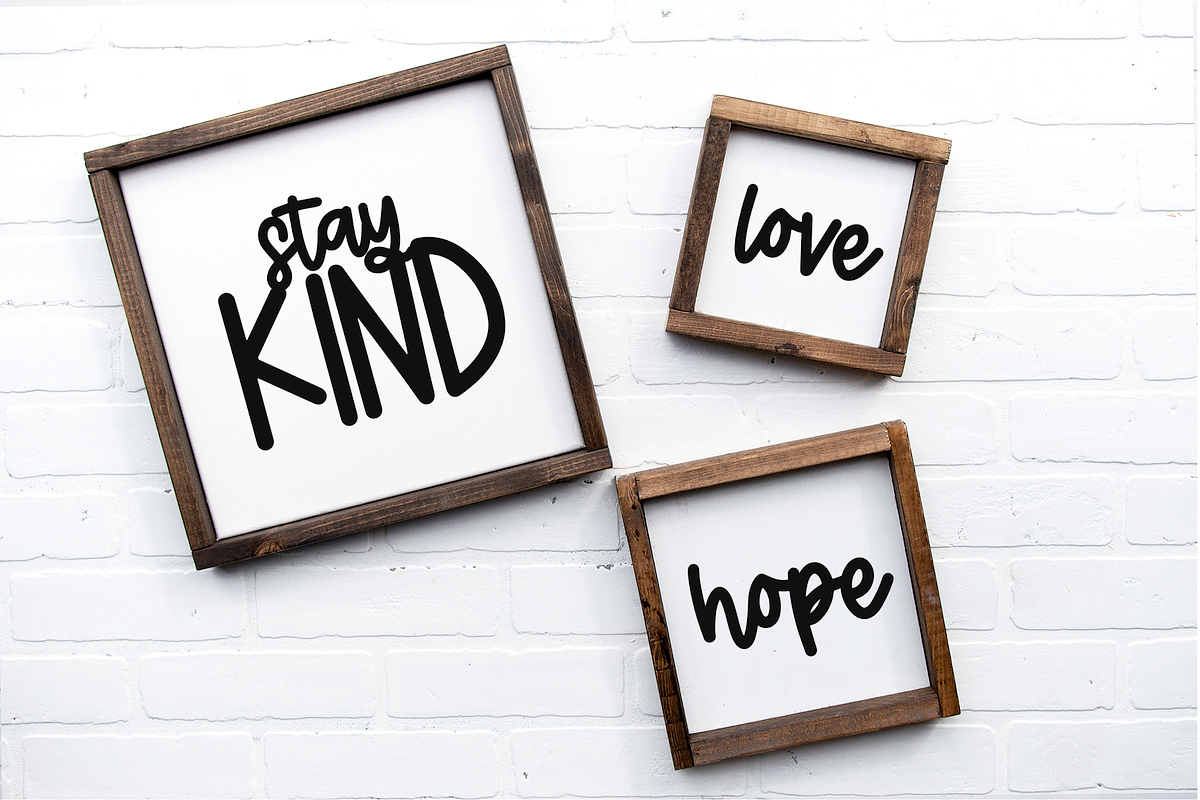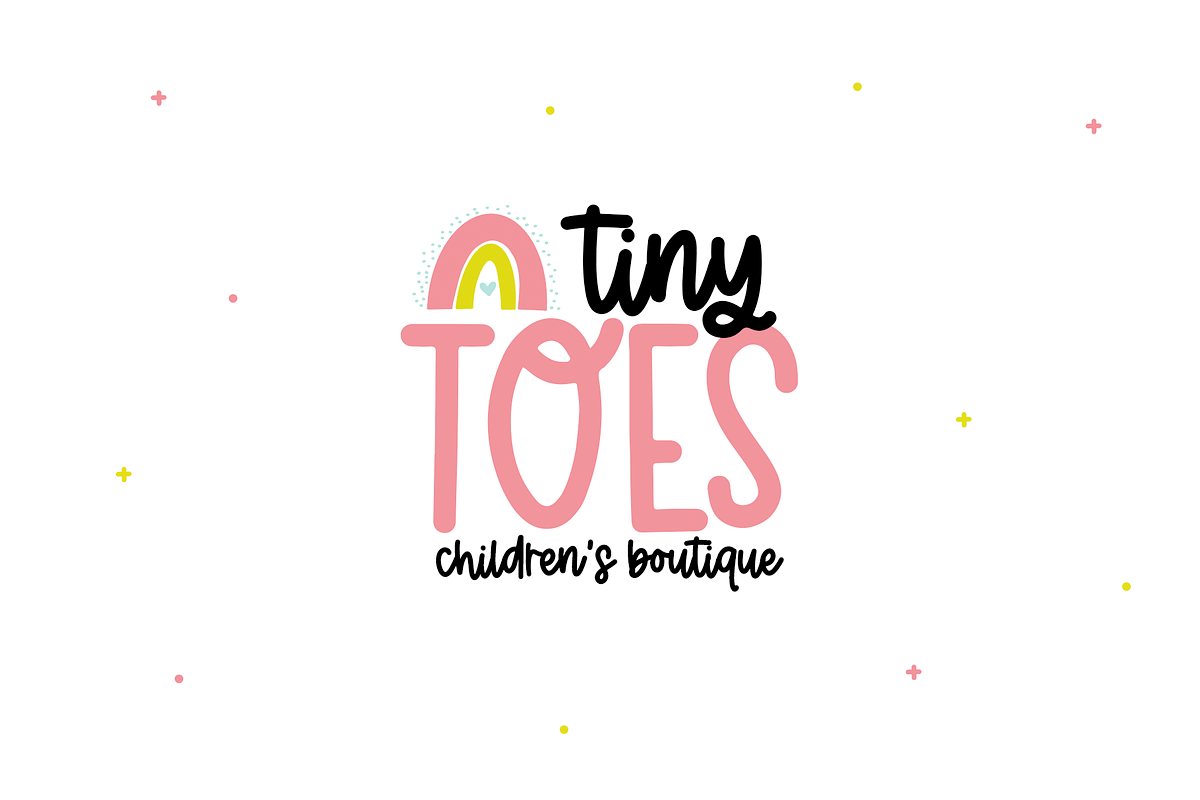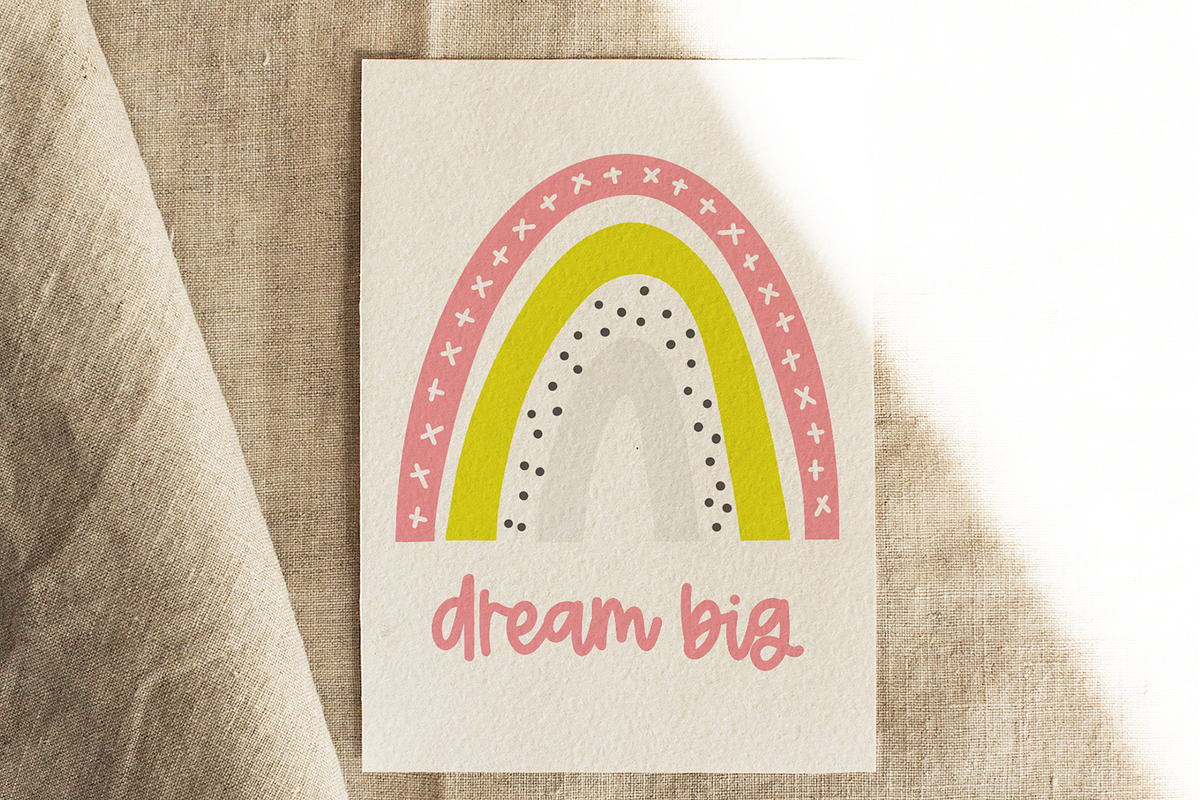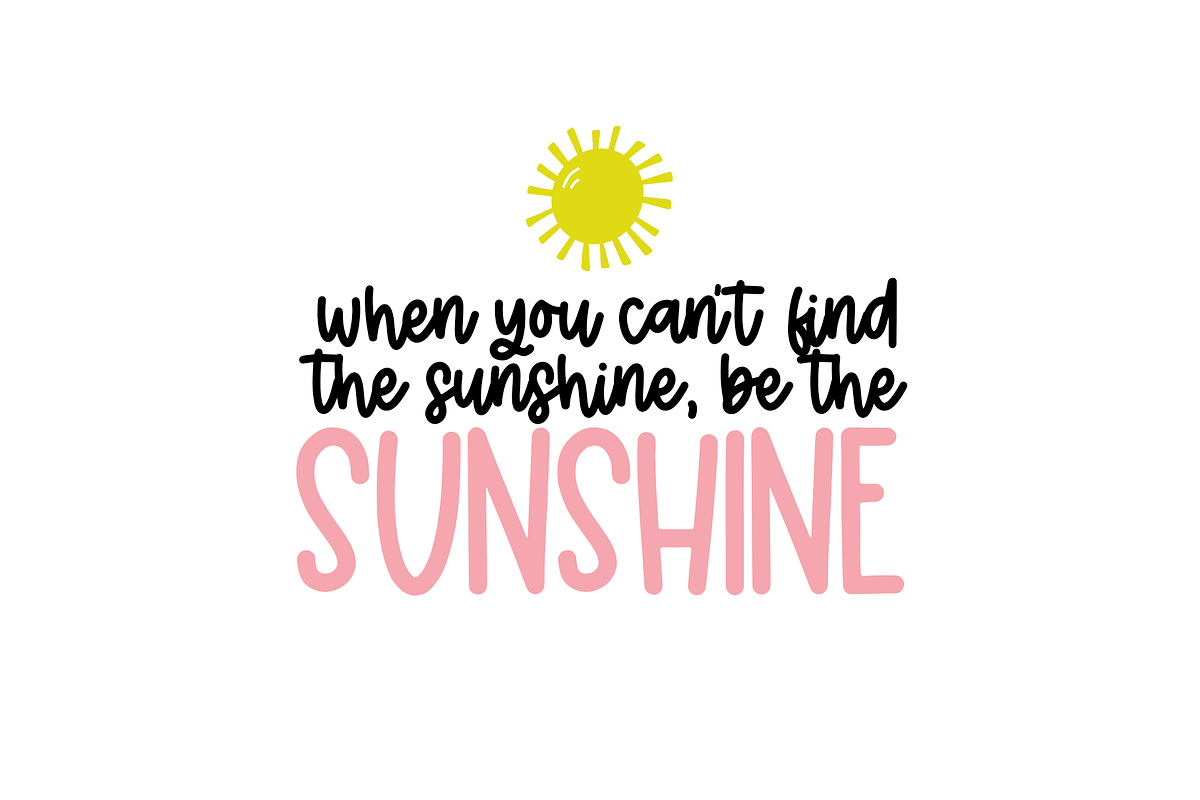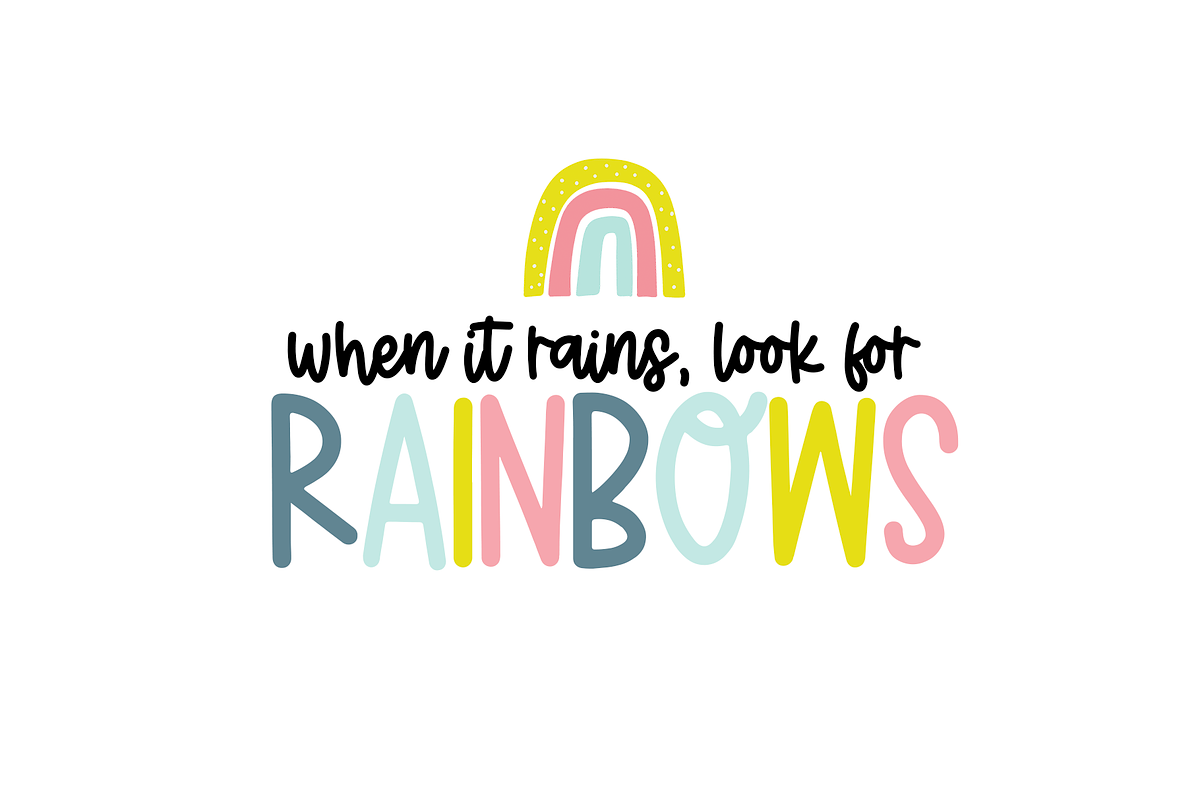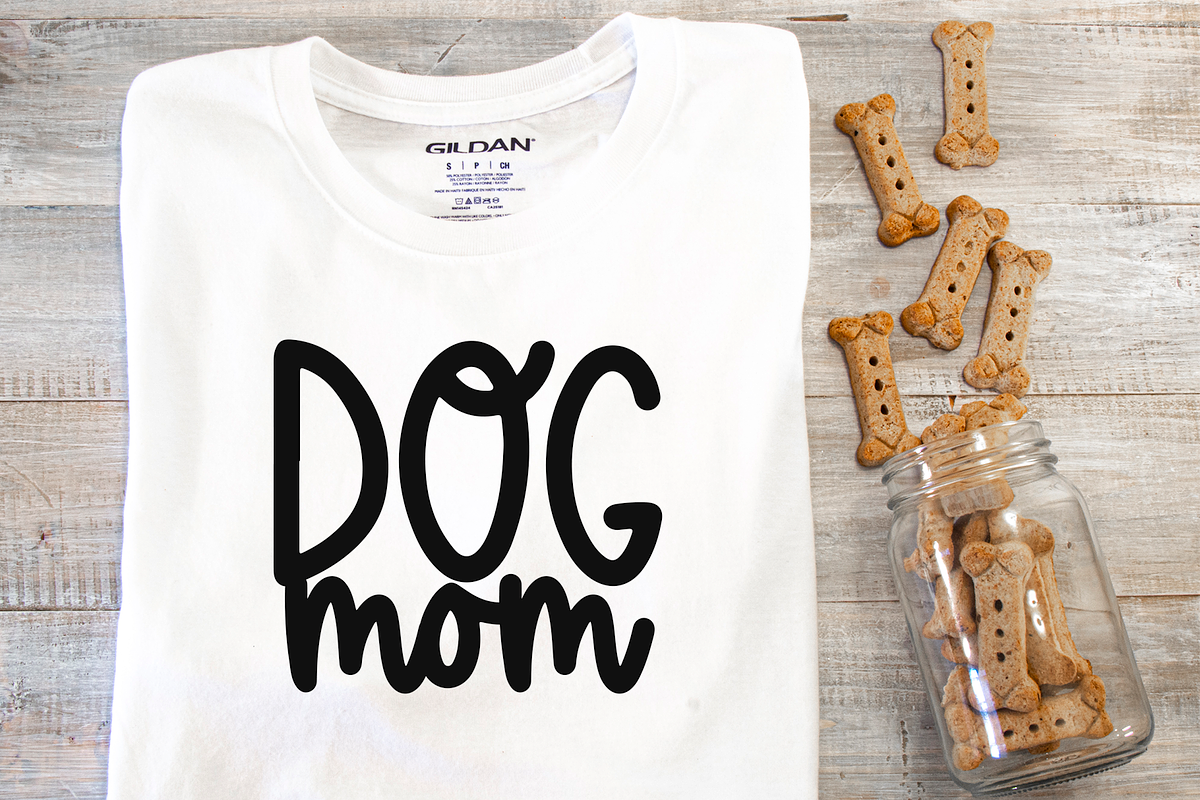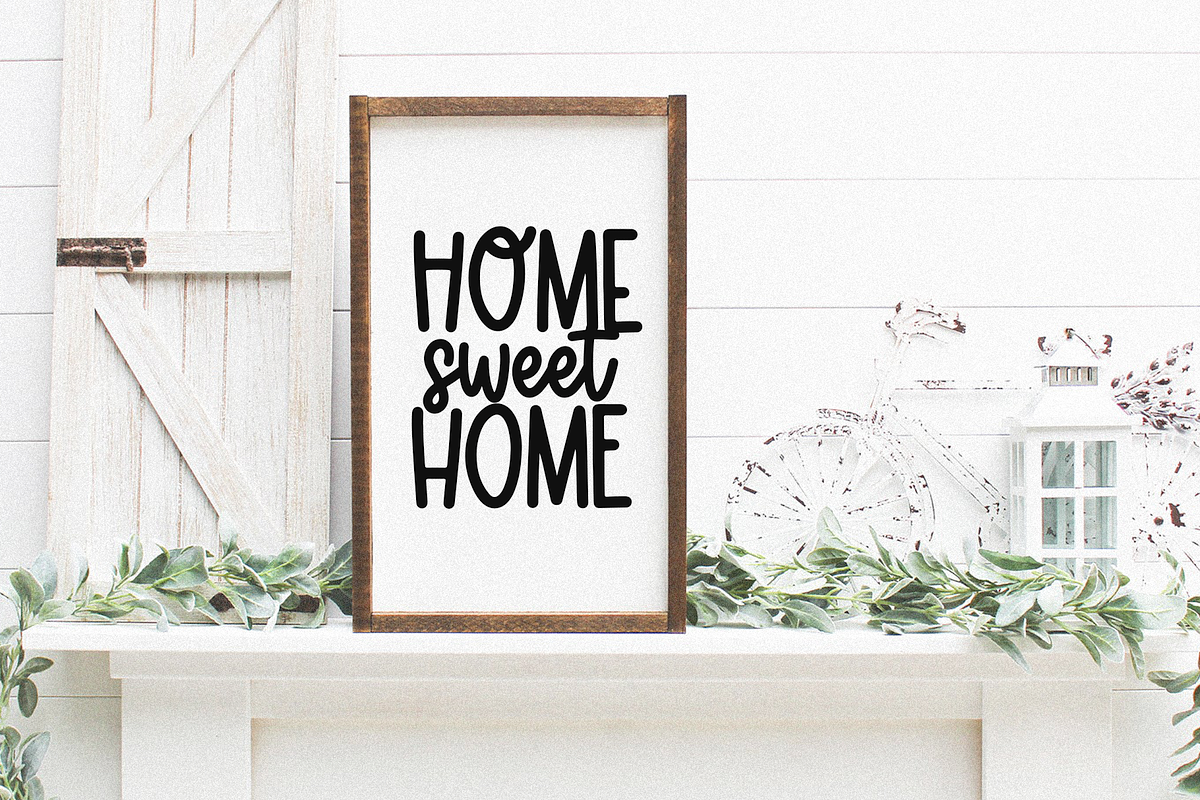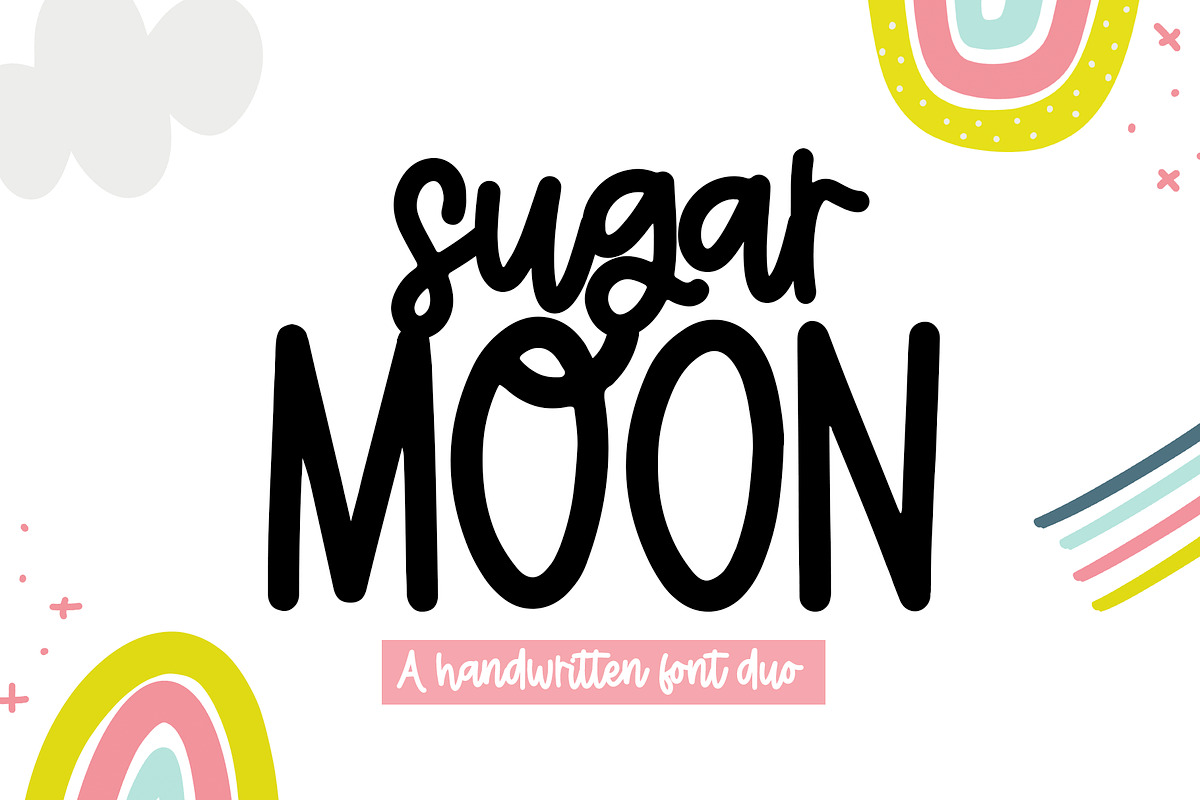
Sugar Moon | Handwritten Font Duo
Sugar Moon is a fun handwritten print/script font duo.
This duo is perfect for quotes, headings, blogs, logos, brandings, invitations and more!